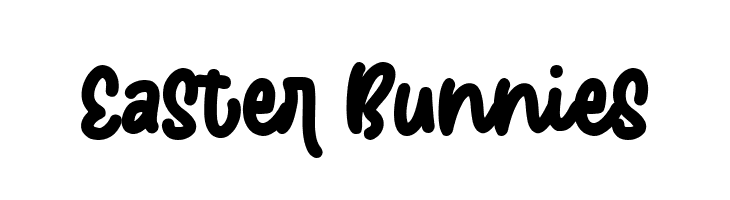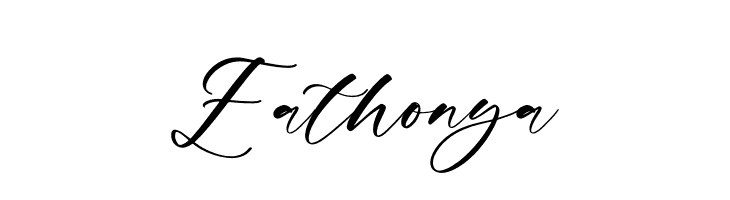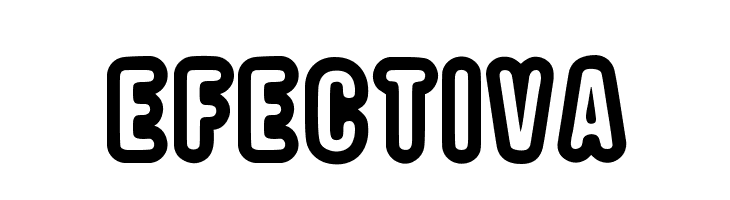
A bold, hand-drawn font with rugged, uneven outlines.
A bold, playful, hand-drawn font with rounded, connected characters.
A playful, bold font with rounded, thick strokes and a hand-drawn feel.
A dynamic and elegant script font with flowing, cursive letterforms.
Elegant handwritten script font.
A playful, bold script font with a handwritten style.
A bold, rounded font with thick outlines and a playful, modern style.